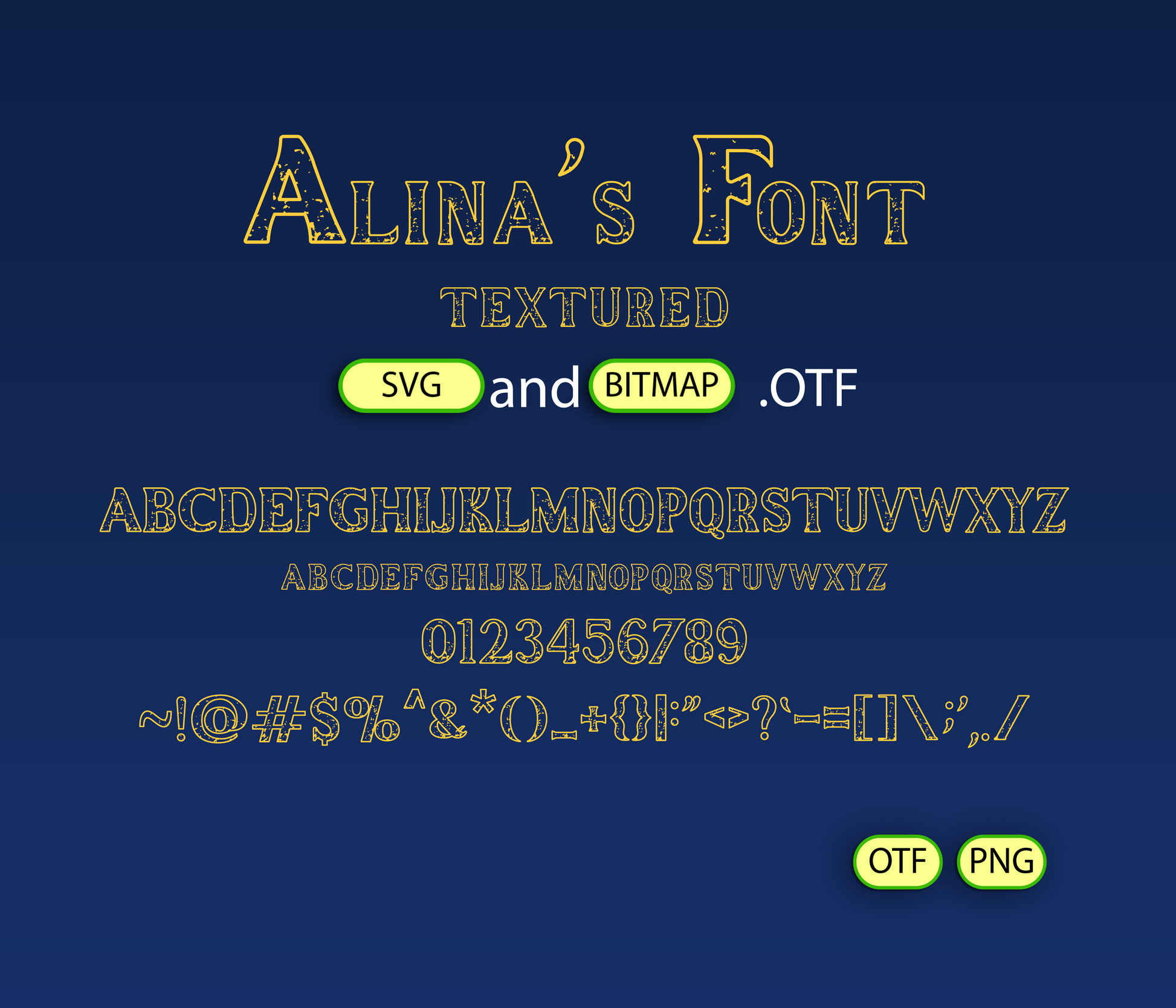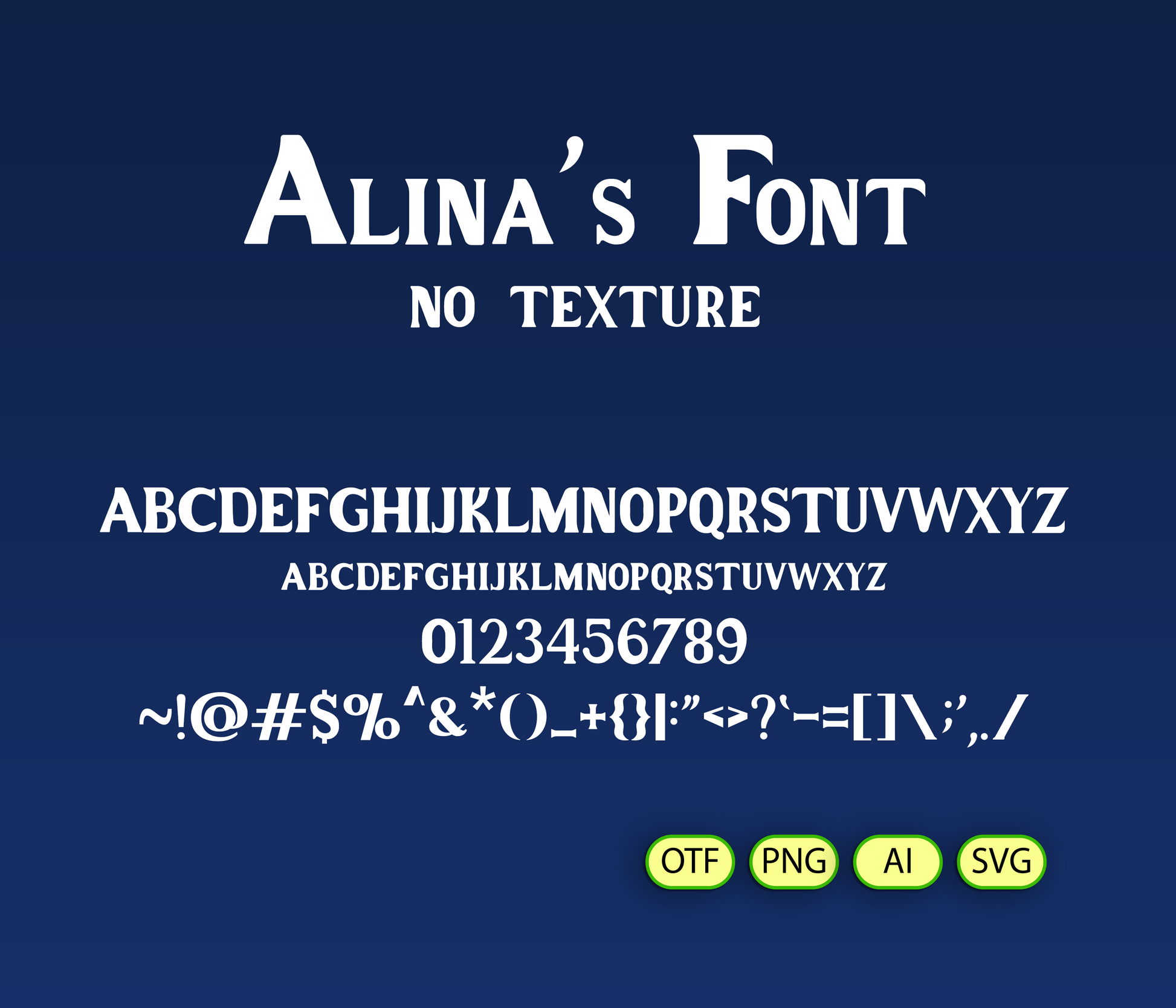
Mystical Pachyderm Animation Font Textured
Mystical Pachyderm Animation Font: A Magical Typographic Journey
In the enchanting realm of a whimsical animated fantasy adventure, the magic isn't just in the story but also in its typographic representation. Based on a beloved children's novel, the film weaves a tale of magic and mystery, reflected in every curve and stroke of its font.
What font is the Mystical Pachyderm font?
The aesthetic treatment of the font, with its playful linear golden elements and added paper texture, gives it a tactile and enchanting appearance, resonating with the film's painterly and magical theme.
The 'Alina'sFont' Mystical Pachyderm font is more than just a typeface; it's a portal to a world of wonder. Its design complements stunning visuals, making it an ideal choice for projects that aim to capture the essence of magical worlds. Whether for personal projects or commercial designs, this font brings a piece of magic and wonder to every creation.